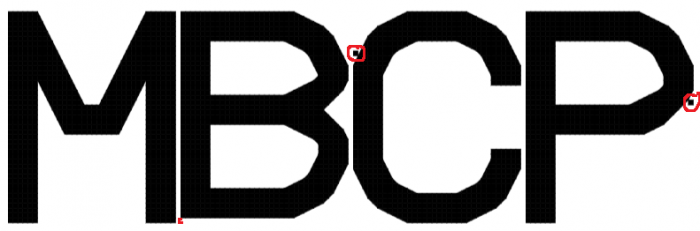
• Caps version of Fowgarla
Your small cap B appears to be a pixel shorter than the others (Also slightly off the baseline), And small caps C and P contain stray bricks…
And a stray brick on small cap R too…